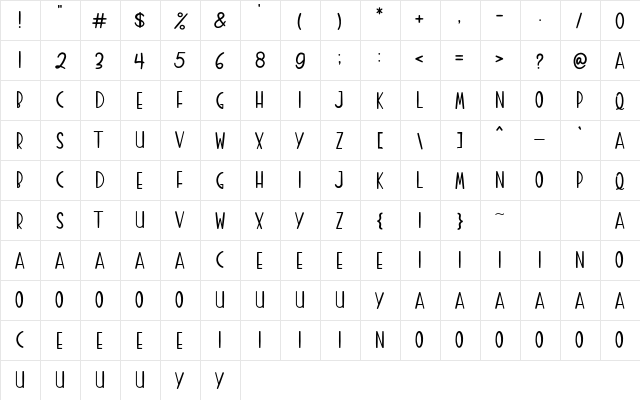
HELLO WHITE Regular
| Foundry | Andriyanto au |
| Designer | Andriyanto au |
Design Context for HELLO WHITE Typeface
HELLO WHITE offers clean, dependable letterforms without strong stylistic allegiance, making it a practical choice for designers who need flexibility.